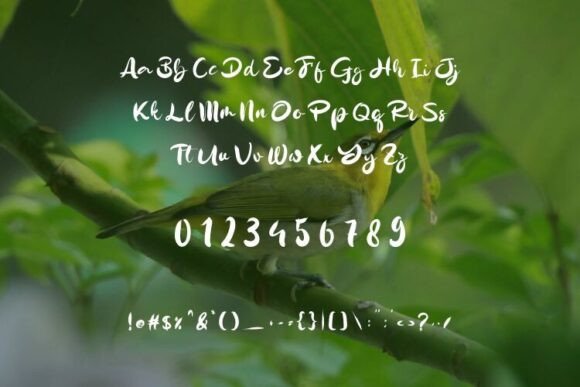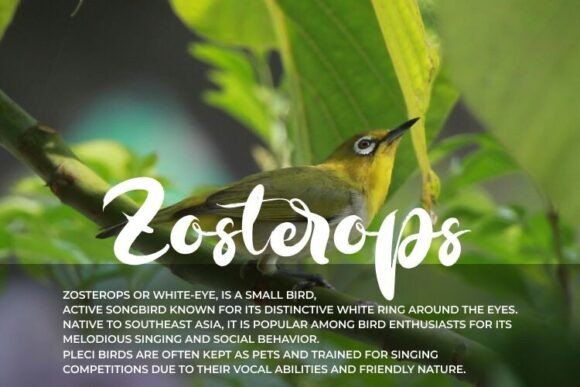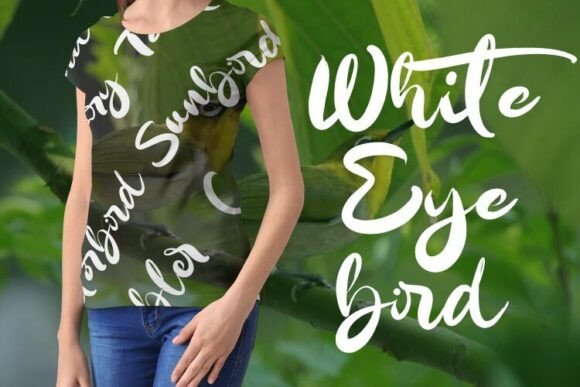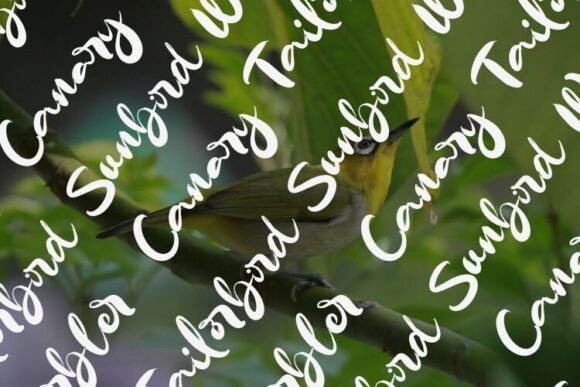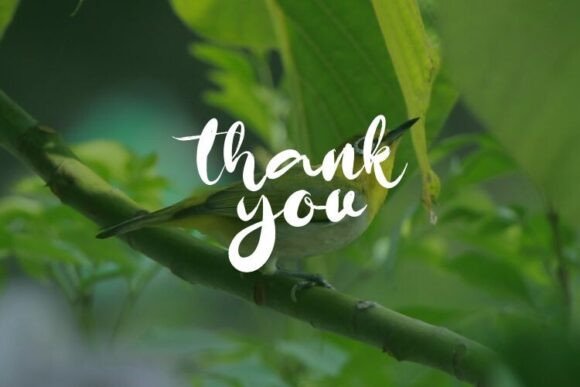
Introduction to Pleci Font
As a designer, you know the thrill of starting a new creative project. The blank canvas, the endless possibilities, and the rush of adrenaline as your ideas begin to take shape. But what if you’re struggling to find the perfect font to bring your vision to life? Enter the Pleci Font, a spirited handbrush font that’s about to become your new best friend.
Named after the lively “Pleci” bird, this font is a true reflection of its namesake’s energetic and expressive personality. With its authentic brush strokes and textured edges, Pleci Font delivers a bold yet natural feel that’s perfect for posters, music covers, branding, and anything that needs a touch of wild creativity.
Pleci Font
- High-quality font with a transparent background, ideal for creative projects and design resources.
- Designed to provide a unique and creative look, perfect for designers and artists working on innovative projects.
- Pleci Font is a perfect addition to any design project, from logos to typography-based art, due to its unique characteristics and high-quality design.
Honest Review: Pleci Font
As a designer, I’m always on the lookout for high-quality fonts that can elevate my creative projects. Recently, I stumbled upon the Pleci Font, and I must say, it’s been a game-changer for me.
- The Pleci Font is incredibly versatile and can be used in a variety of design contexts, from logos to typography.
- The transparent background option allows for seamless integration with any design element.
- The font is available in a range of weights and styles, giving designers plenty of options for customization.
- The font may not be suitable for use in small text sizes, as it can become pixelated.
- The font is not as extensive as some other font families, which may limit its use in certain design projects.
Pleci Font
Pleci Font is a high-quality design resource ideal for creative projects that require a unique and stylish touch. With its transparent background, this font is perfect for use on various design platforms.
Tips for Getting the Most Out of Pleci Font
To get the most out of Pleci Font, experiment with different font sizes, colors, and combinations to create a unique and stylish design.
Pleci Font is commonly used in creative projects such as logo designs, social media graphics, and business cards.